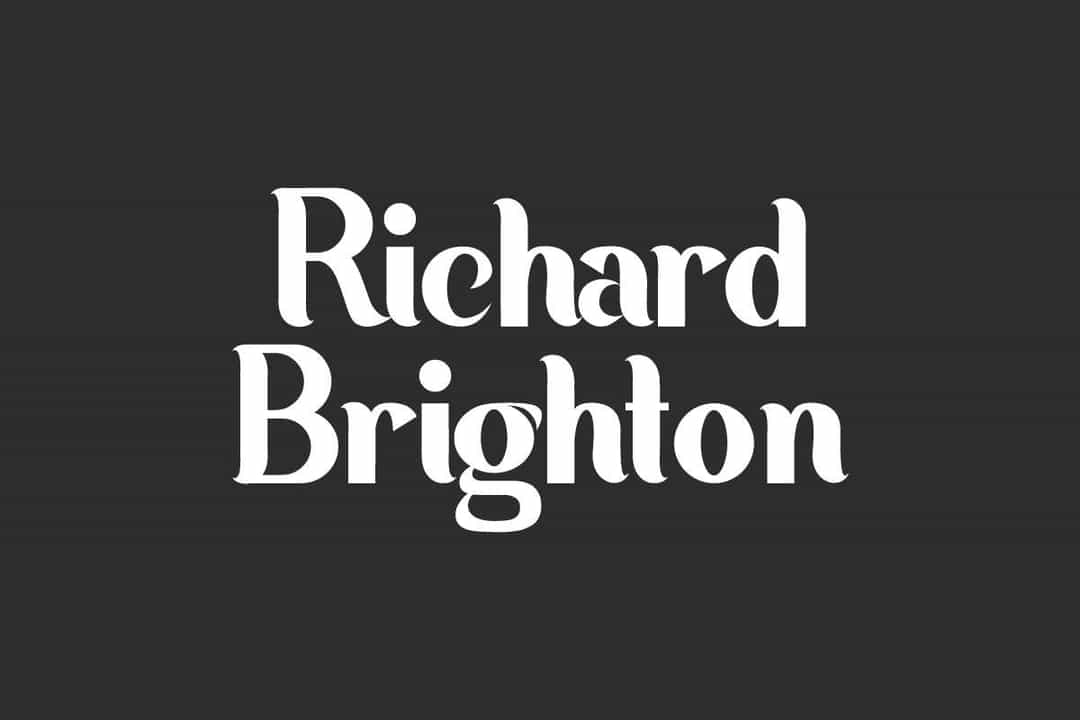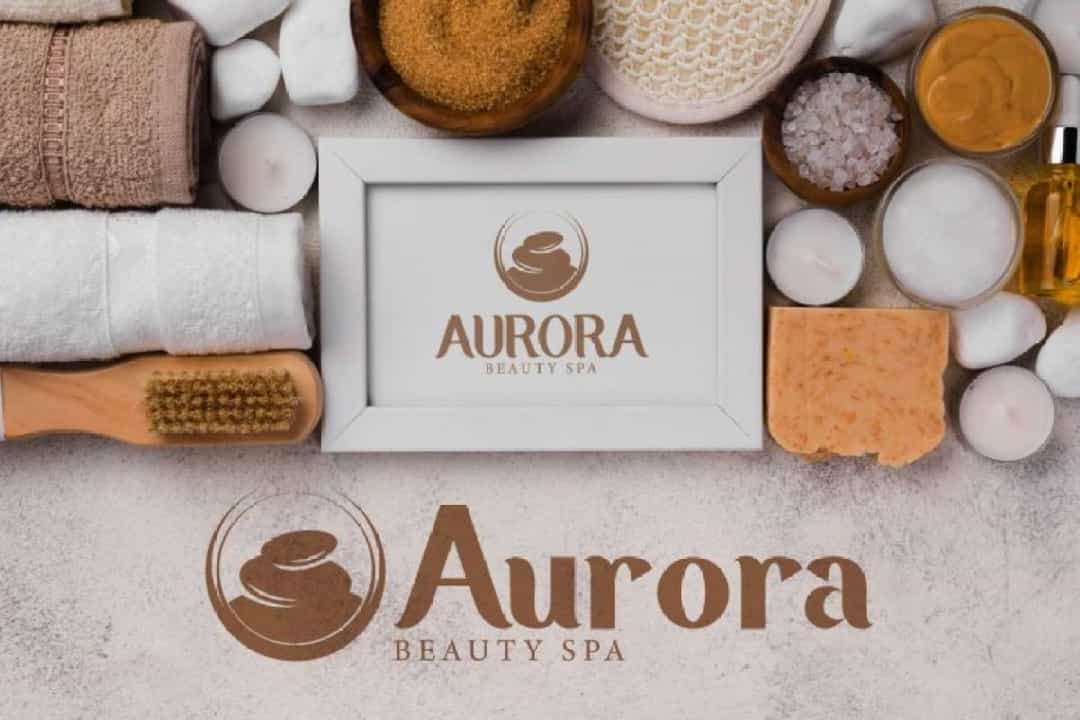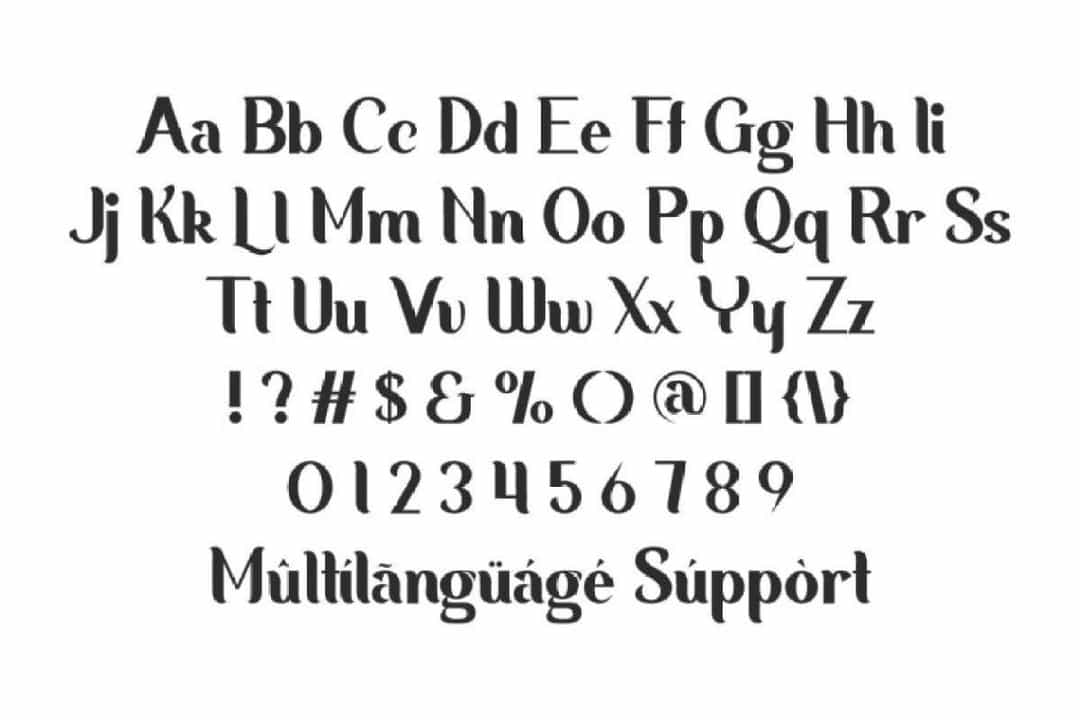
Richard Brighton Font is a beautiful serif display font with retro and vintage vibes, available in both Regular and Italic versions. Each letter of this font was meticulously designed, creating the ideal base case and look. Additionally, Richard Brighton includes uppercase, lowercase Basic Characters, Numerics and Punctuation characters and punctuation forms for full functionality.